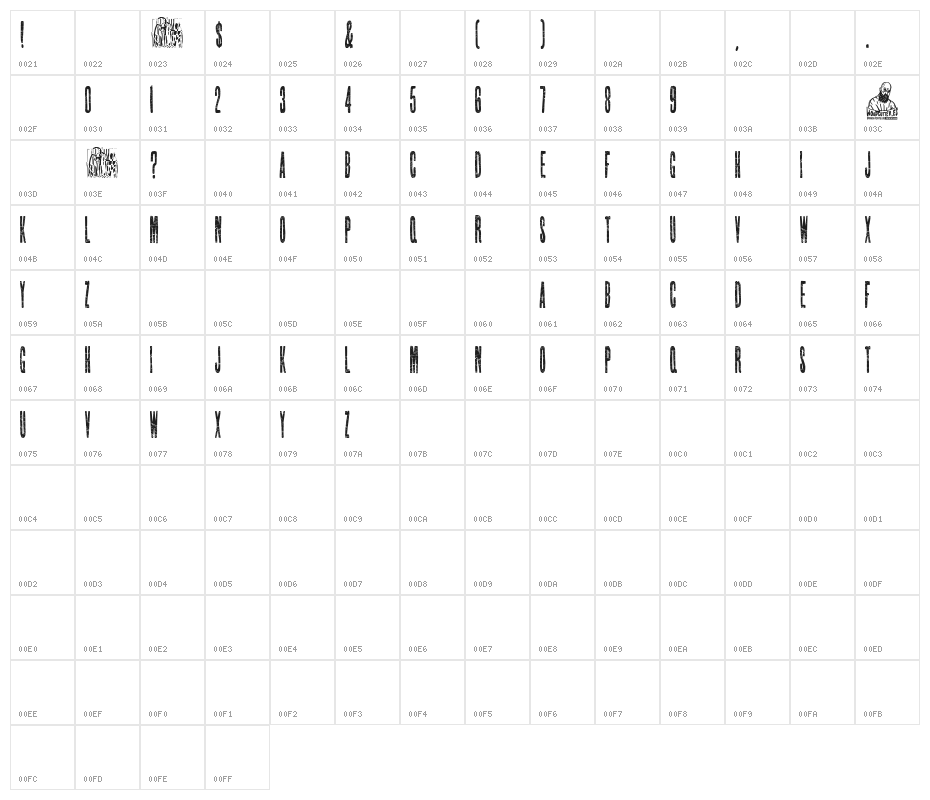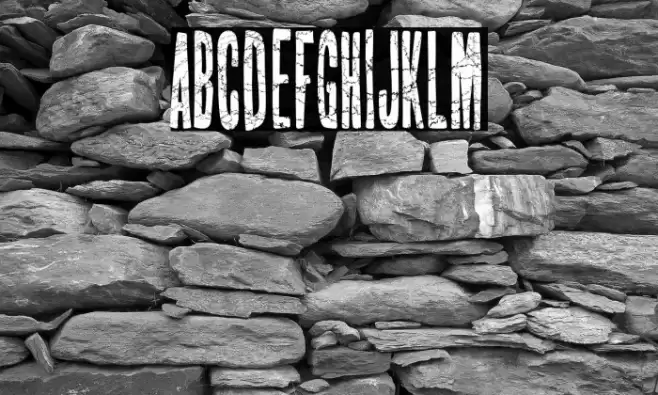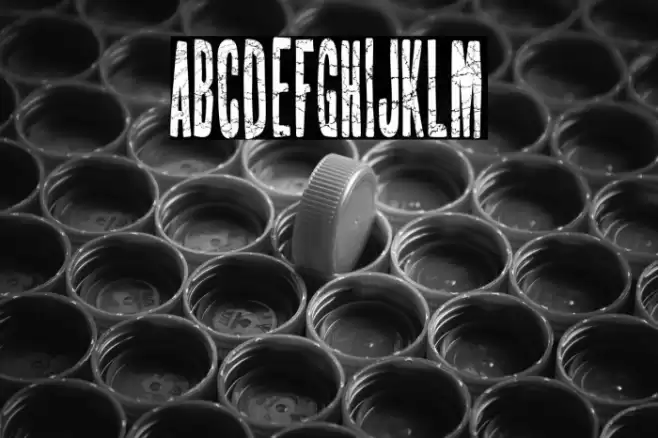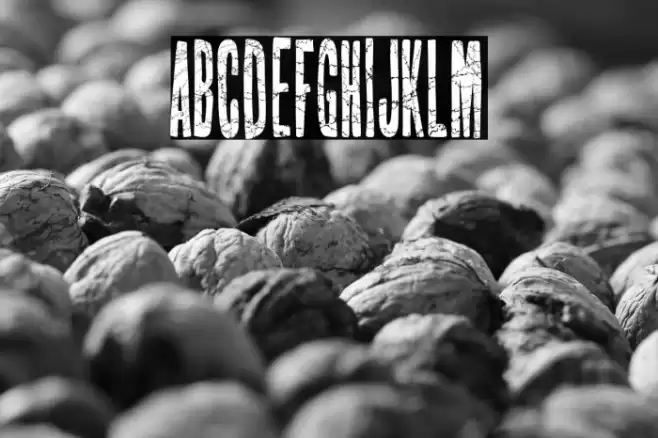
Drugs & Trap Font
Drugs & Trap Description
This font features a distressed, grunge style with a textured appearance that gives it a rugged, worn look. The characters are bold and tall, with a slightly condensed width, making them stand out prominently. The uneven texture adds a sense of depth and character, reminiscent of vintage or industrial design. The uppercase letters are consistent in height, while the numbers and special characters maintain the same distressed aesthetic. This font is ideal for projects that require a bold statement with a touch of edginess.
| Overall Style | Vintage, Grunge |
| Proposed Projects | Ideal for music album covers, posters, urban-themed designs, and branding projects that require a gritty, bold look. |